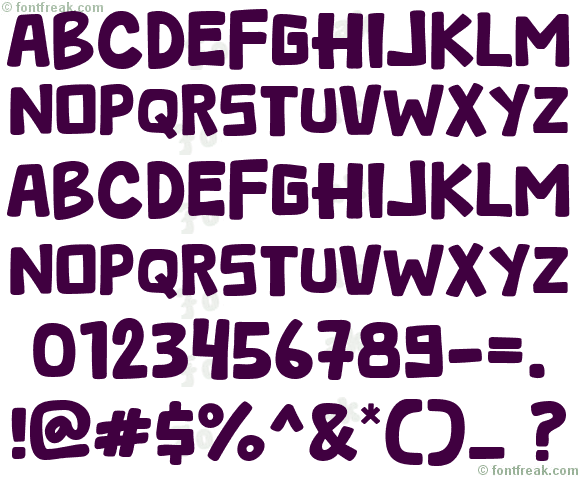
Burger Free
About Burger Free
The Burger Free font by Syaf Rizal is a distinctive display typeface that captures attention with its playful and bold aesthetic. As a decorative font, it features thick, rounded strokes that convey a sense of fun and approachability. The uniform stroke weight ensures clarity and legibility, making it an excellent choice for various design applications. Its slightly condensed spacing gives it a compact look, allowing for effective use in both large headings and smaller text scenarios.
This font shines in several specific use cases. It is ideal for restaurant menus, particularly those with a casual or trendy vibe, as it evokes a sense of comfort and familiarity. Additionally, Burger Free is perfect for food-related branding, such as burger joints or cafes, where a fun and inviting atmosphere is essential. It also works well for posters promoting events like food festivals or summer fairs, where its lively character can draw in crowds. Graphic designers looking to create eye-catching social media posts or advertisements will find this font valuable for its unique flair.